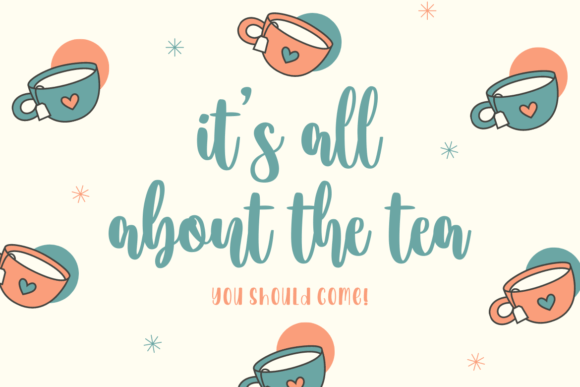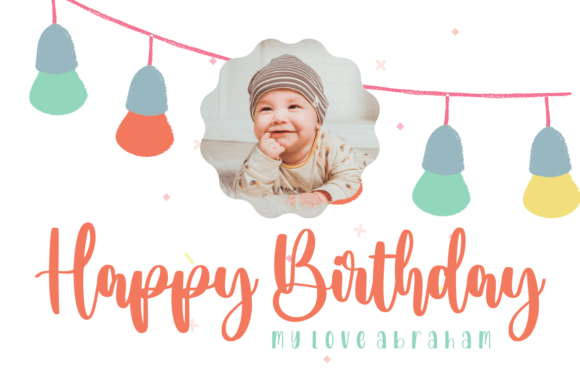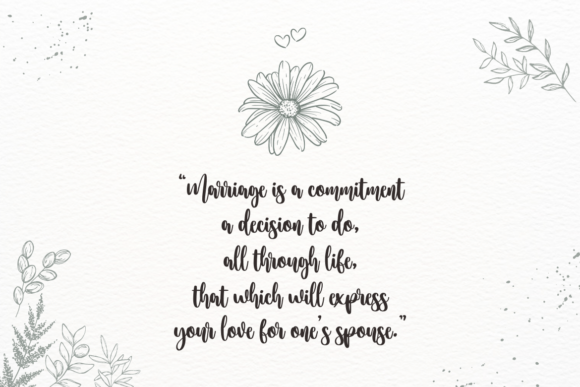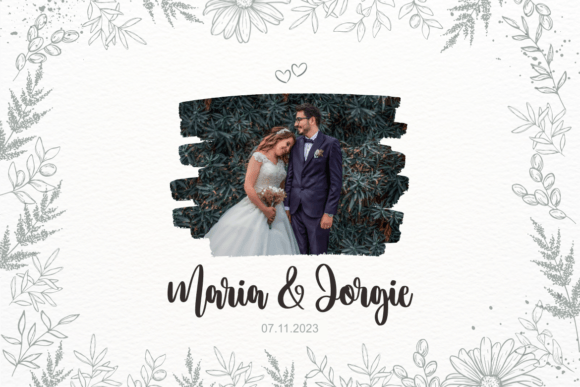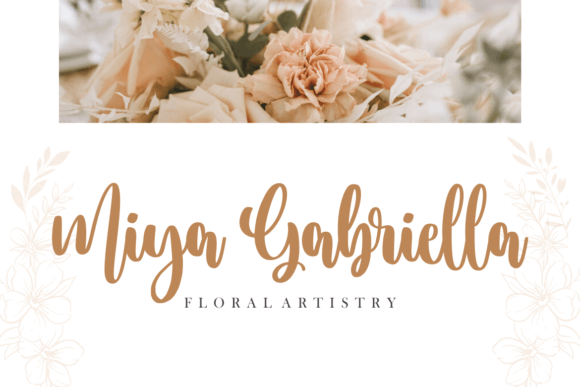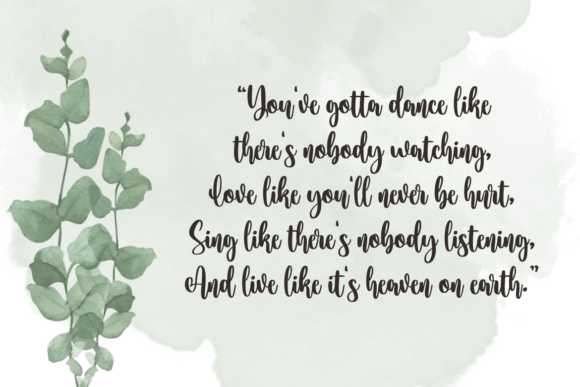
Melodrama Font – Free Download
Introduction to Melodrama Font
Melodrama is a stylish and modern handwritten font, suitable for a wide spectrum of applications.
From greeting cards to headlines, this font will guarantee a romantic touch to each of your creations .
Key Features of Melodrama Font
Why Choose Melodrama Font?